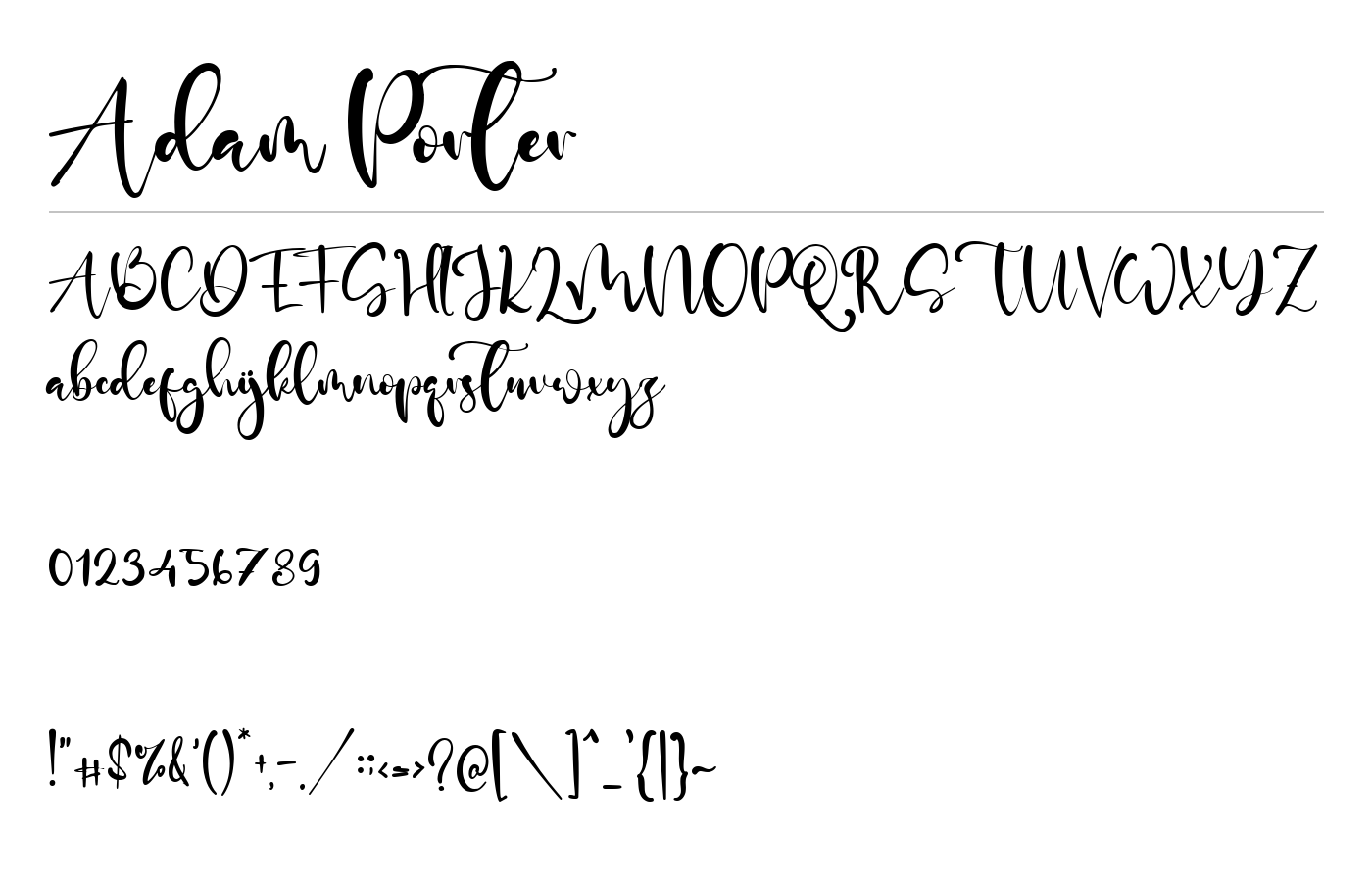
Adam Porter is a stylish script font characterized by its elegant, flowing strokes and varying weight that creates a dynamic, handwritten feel. Its high contrast between thick and thin lines, combined with playful swashes and flourishes, gives this font a sophisticated yet approachable personality, ideal for branding, invitations, and headlines that seek a personal touch with flair. This font works well in creative and fashion-forward contexts where a modern, graceful aesthetic is desired.
Adam Porter Font
About Adam Porter Font
| Font family | Adam Porter Font |
| Designer | Staircase Studio |